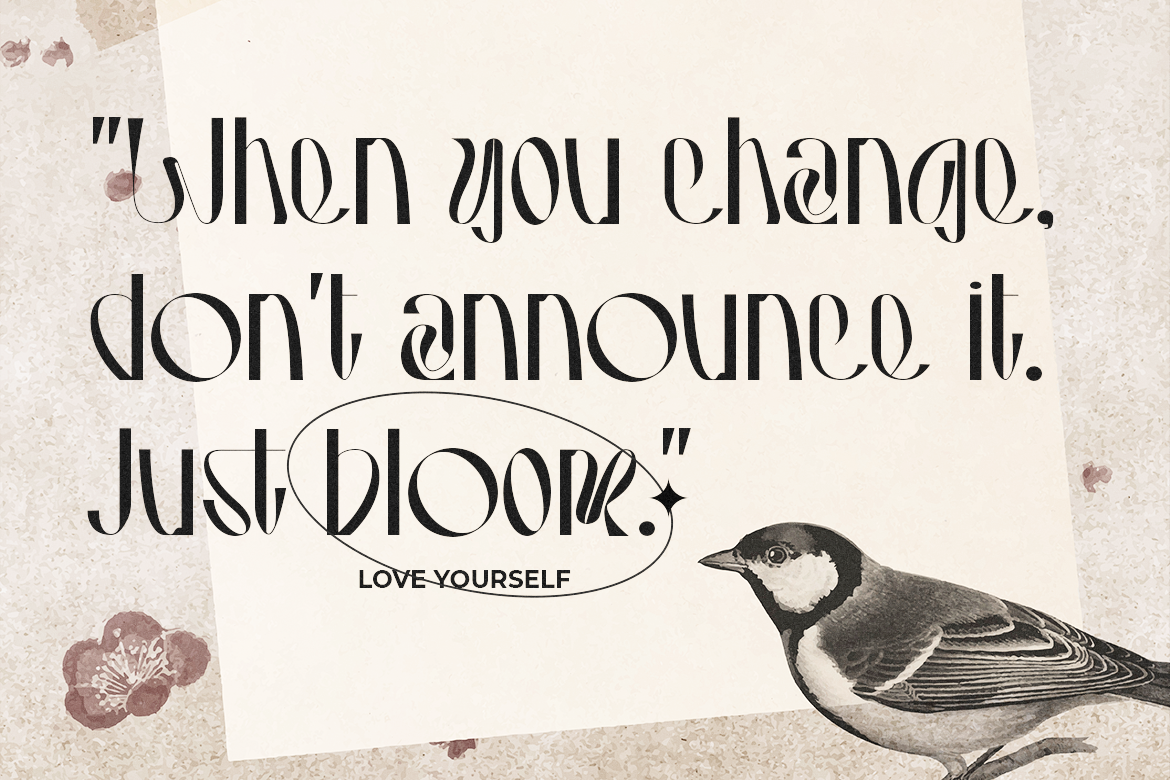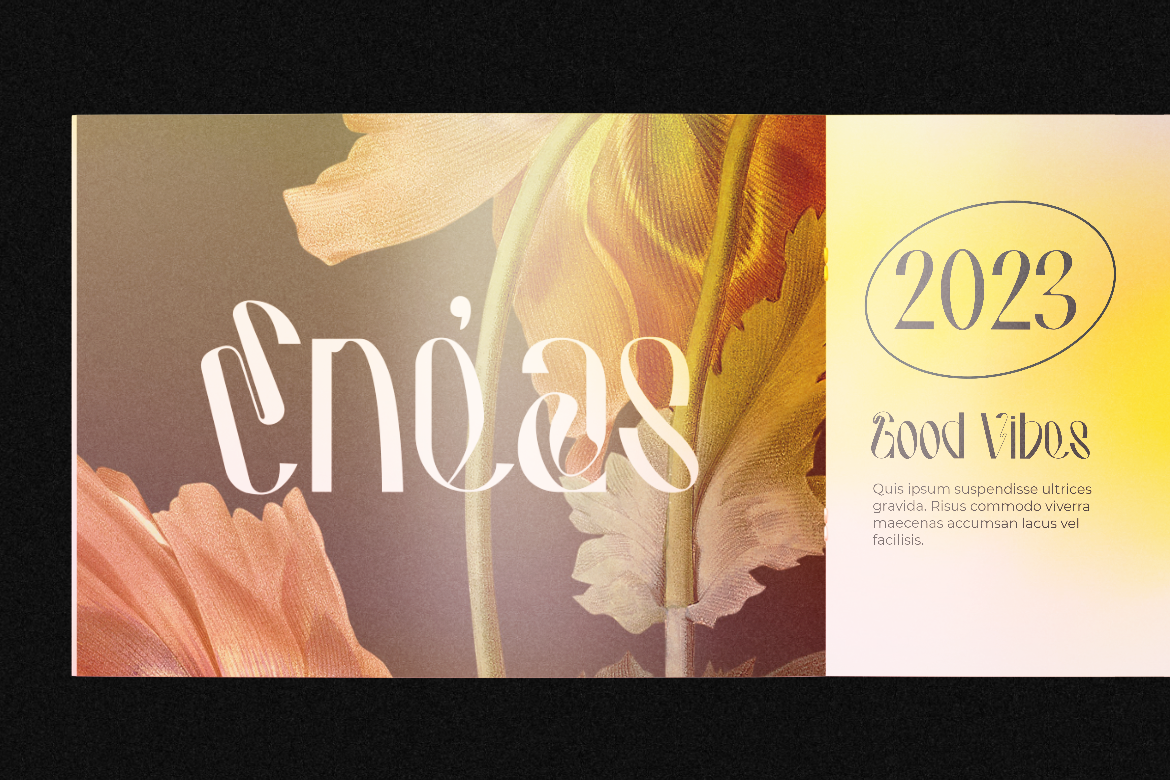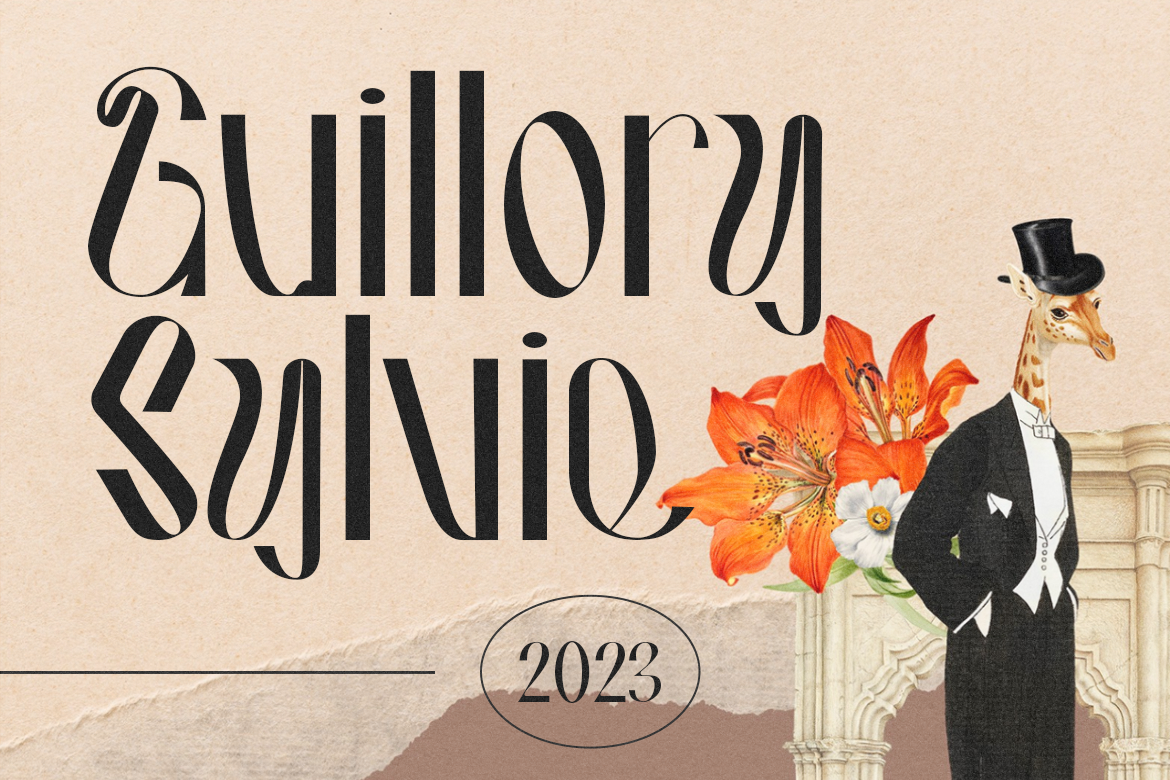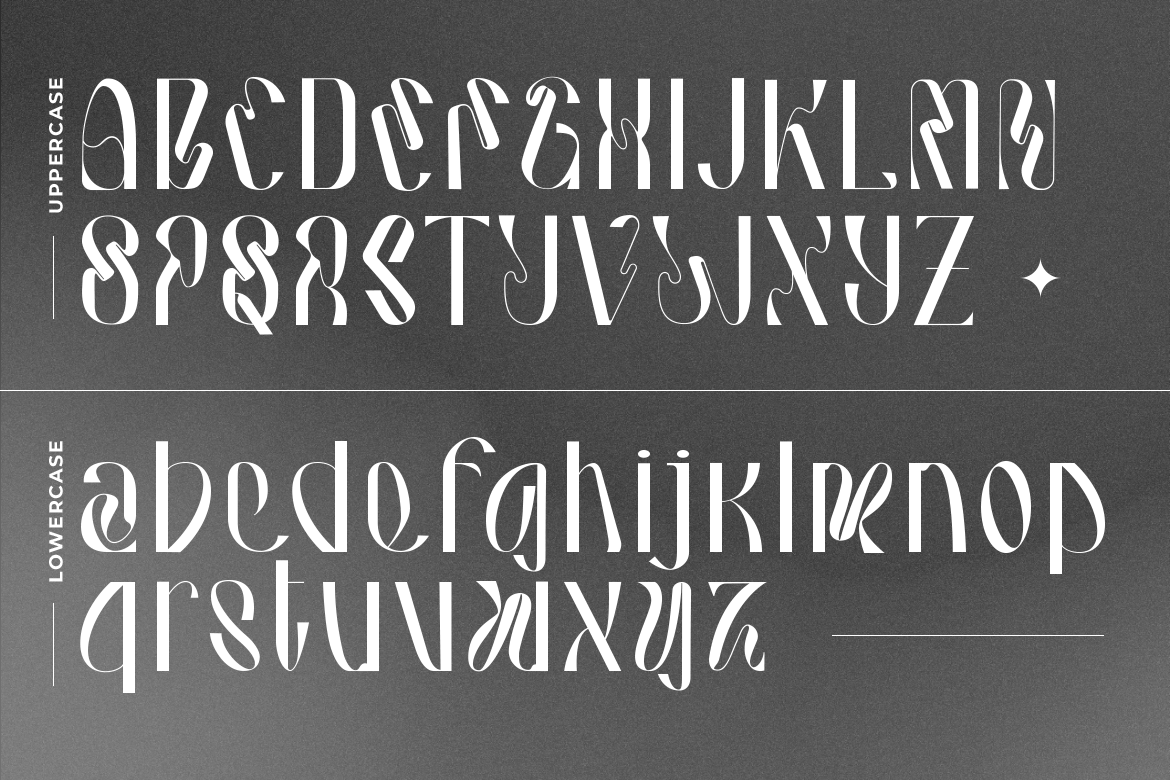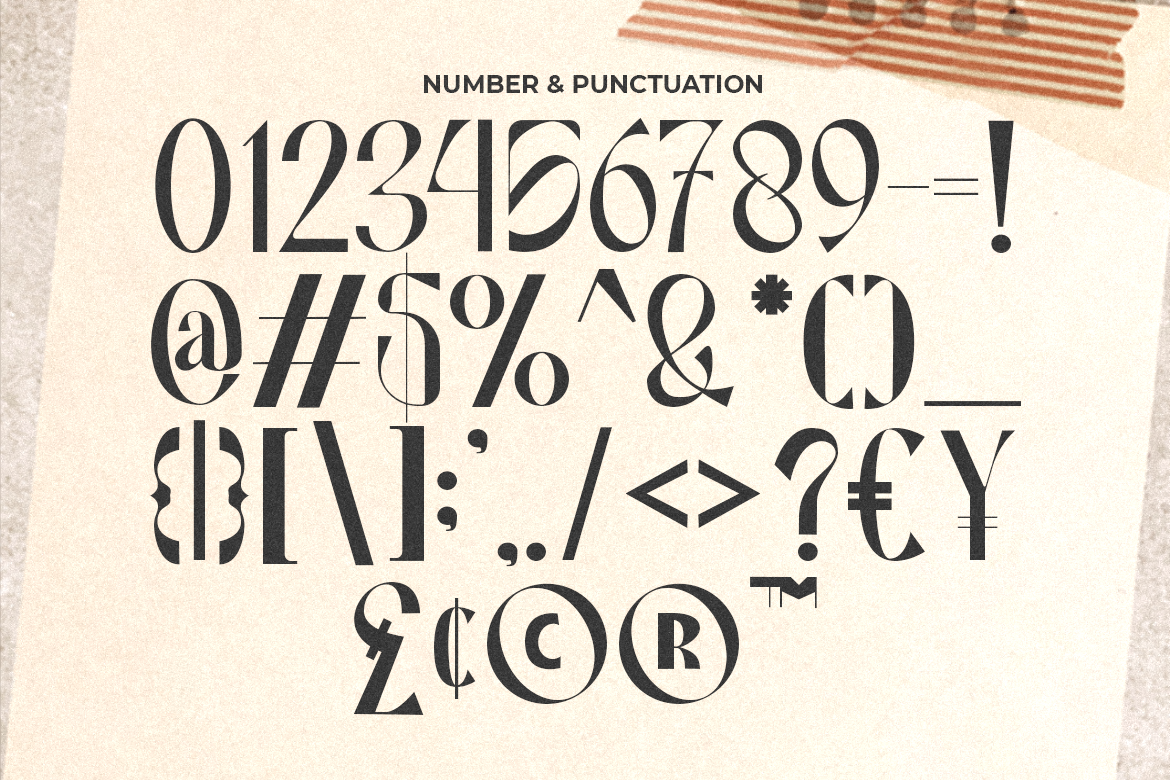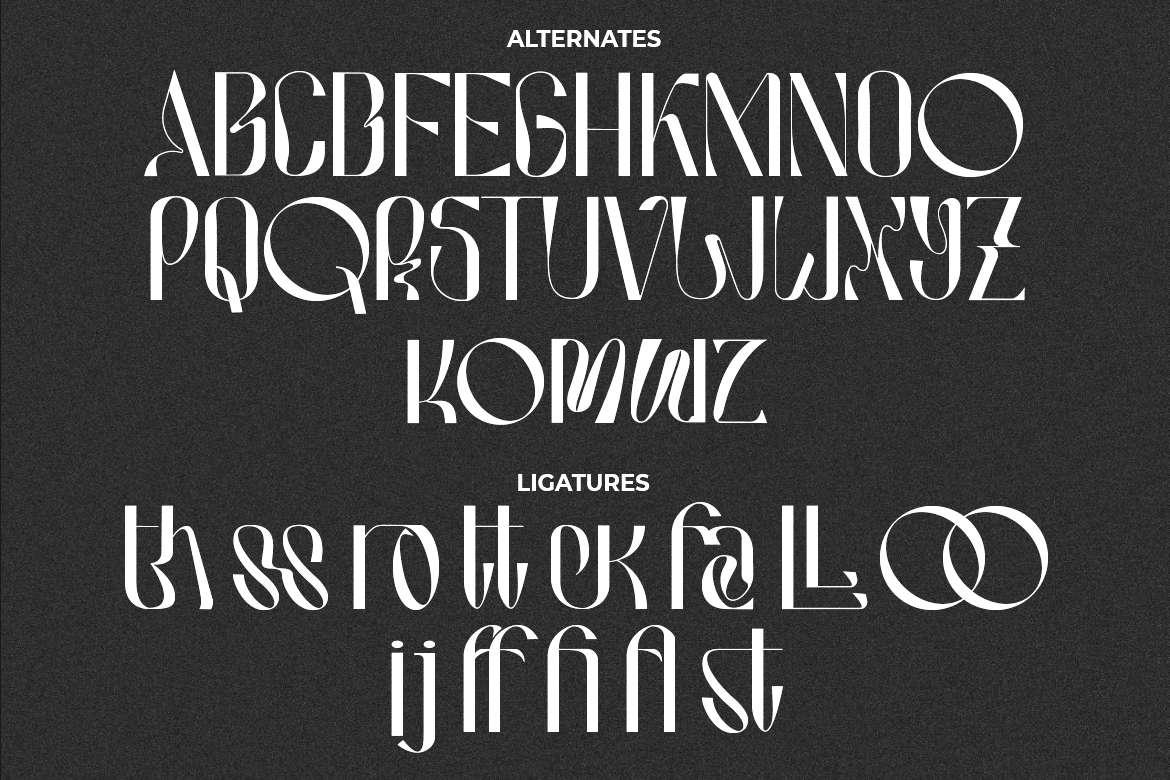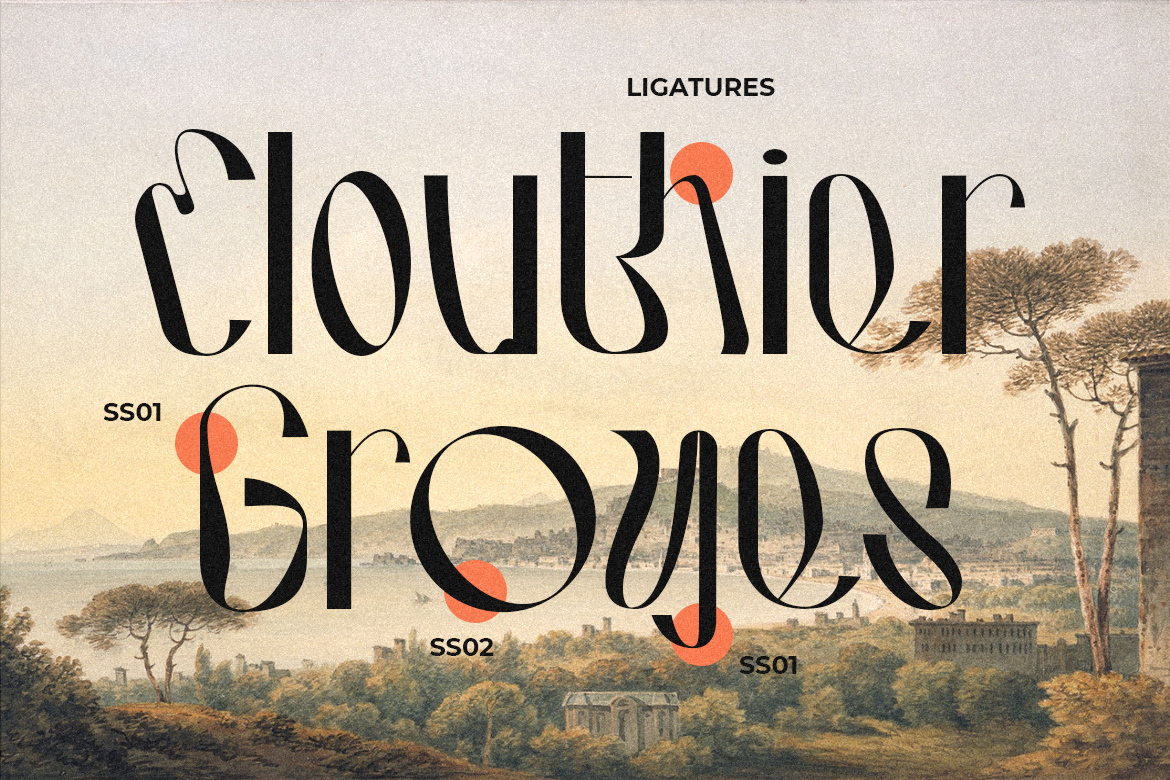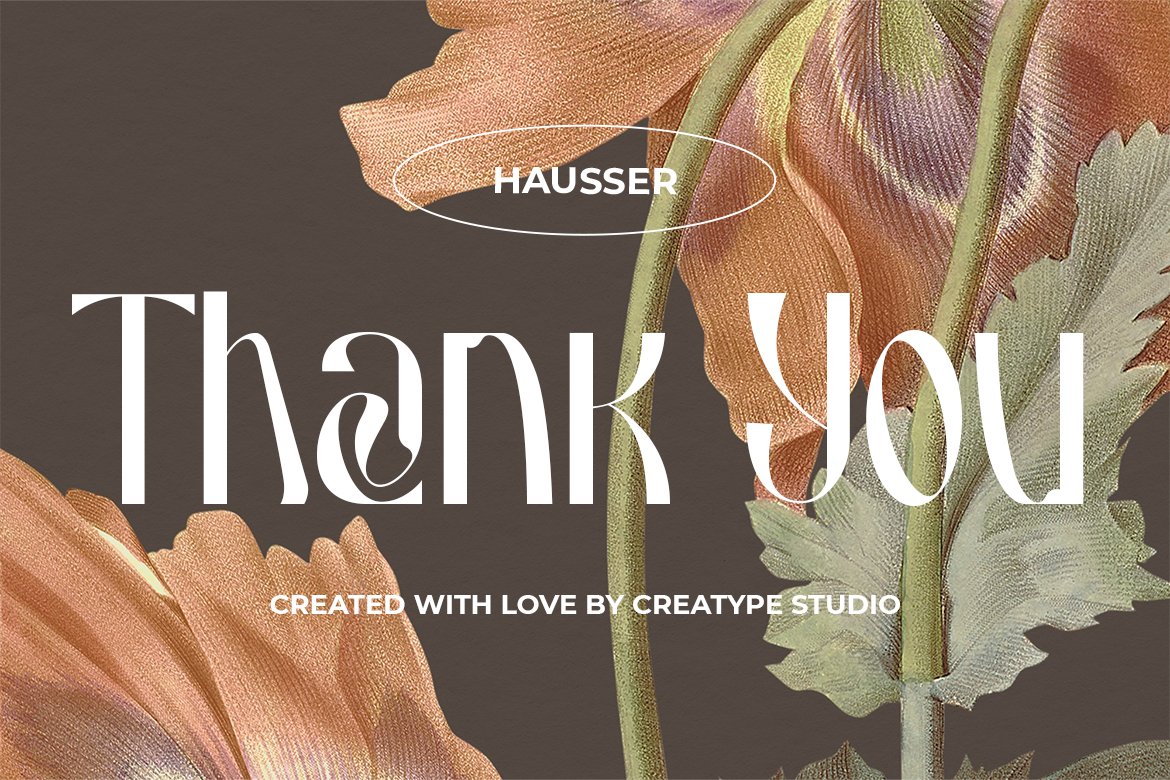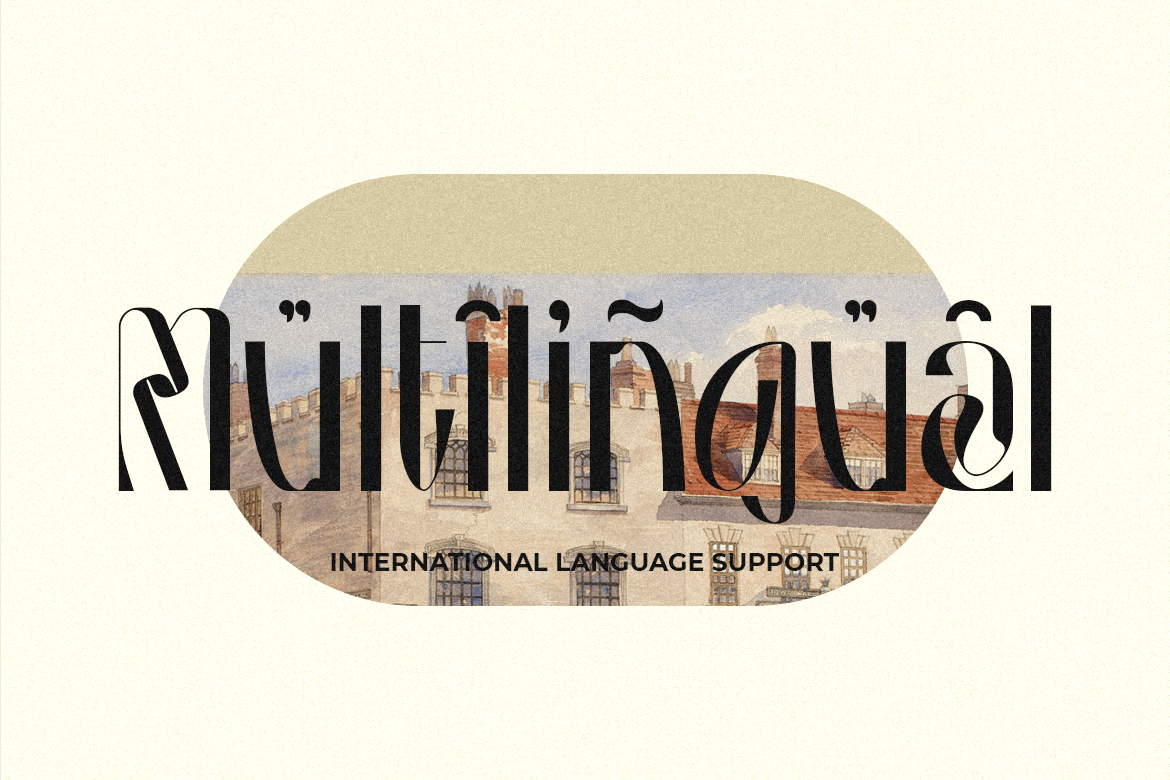
Hausser is a little spice with a typeface that’s bold, unique, and full of psychedelic vibes. it’s like a journey through a fantastical wonderland where your words can be anything and everything
Hausser is perfect for branding projects, logo, wedding designs, social media posts, advertisements, product packaging, product designs, label, photography, watermark, invitation, stationery and any projects that need handwriting taste.
Hausser Modern Display